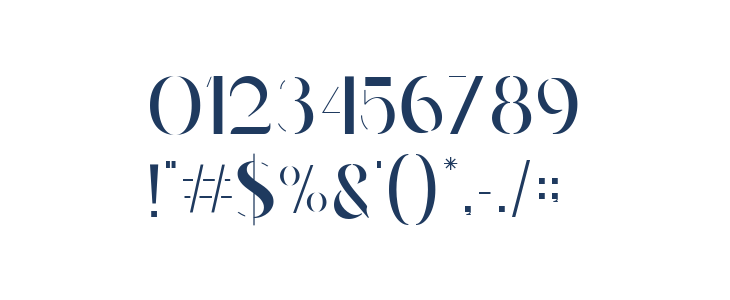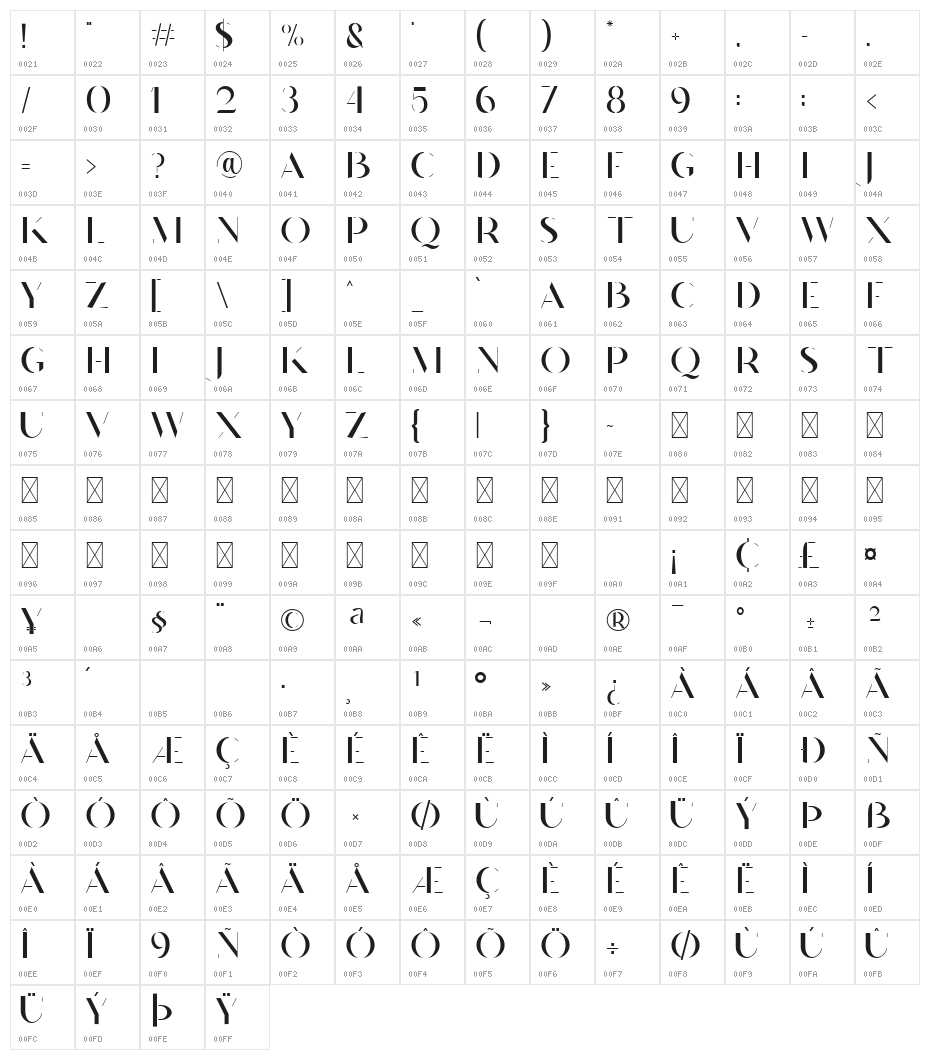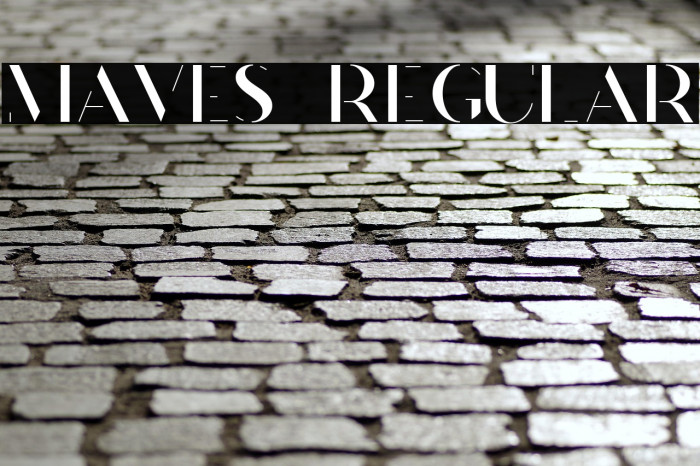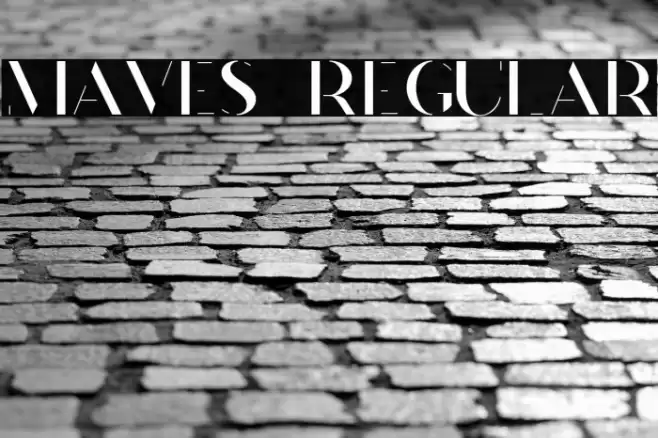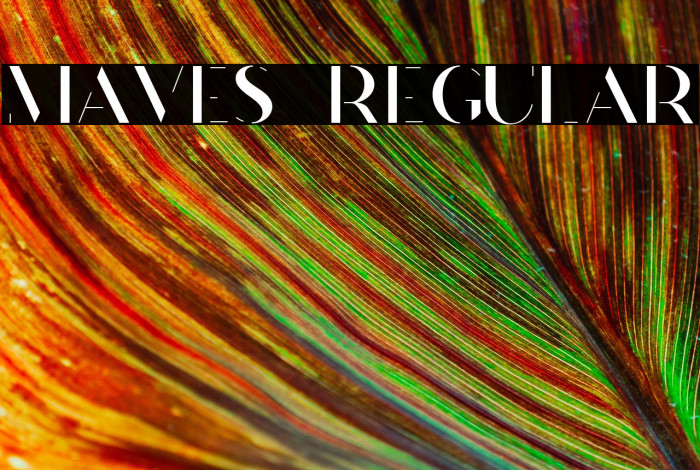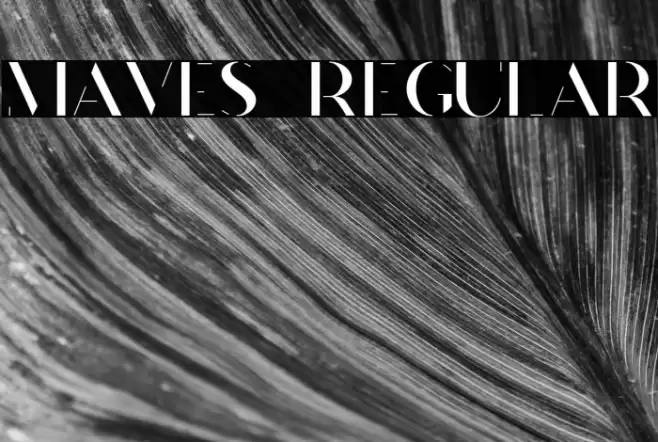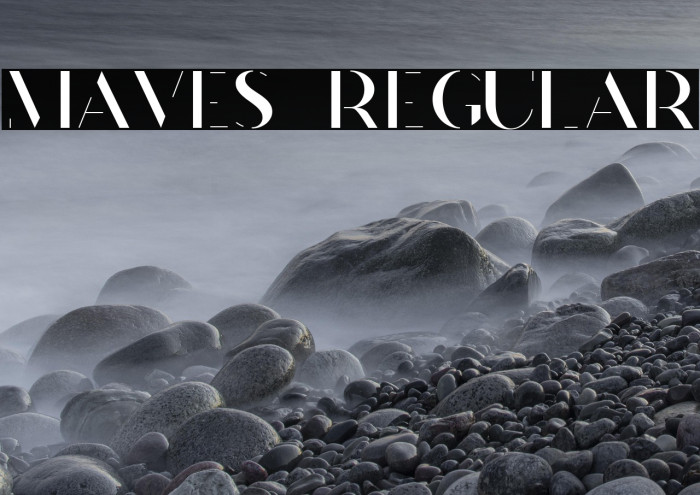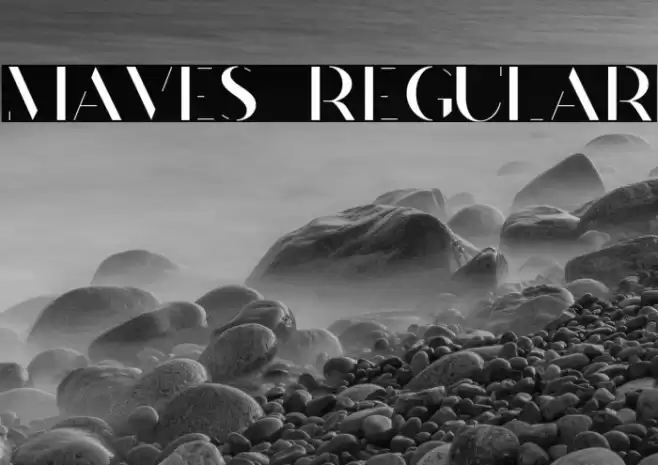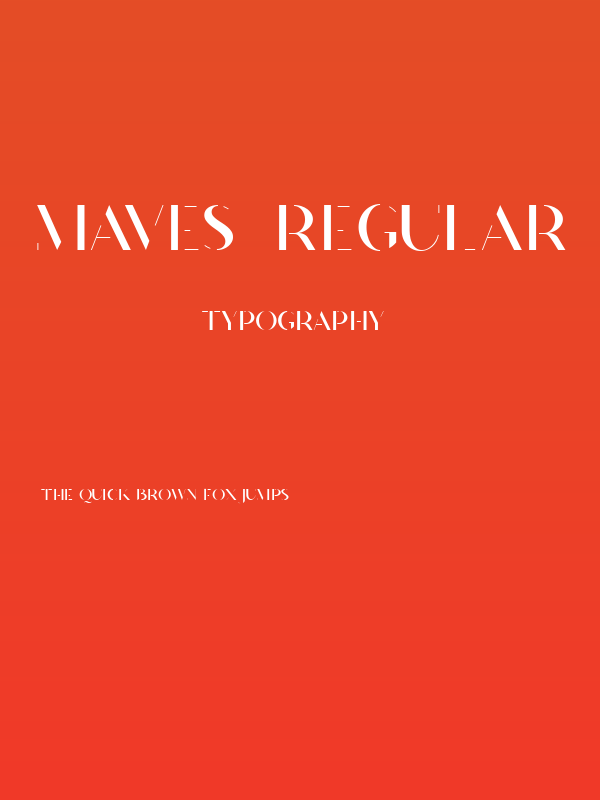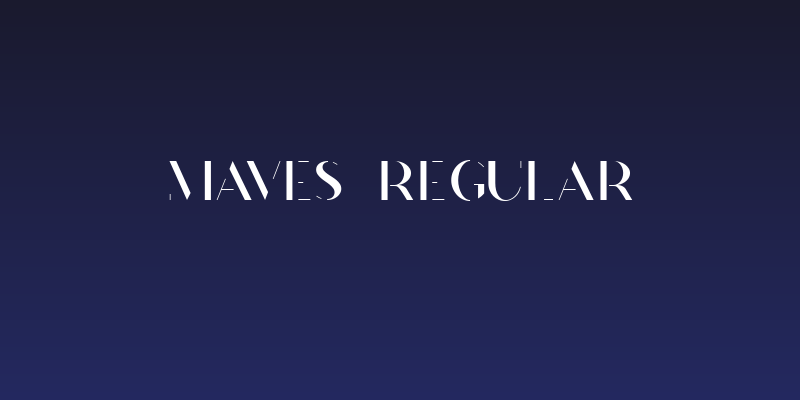
Maves Regular Font
Maves Regular Description
This font features a modern and artistic design with a unique stencil-like appearance. The characters are defined by bold, clean lines with strategic cutouts that create a sense of movement and dynamism. The uppercase and lowercase letters maintain a consistent style, offering a cohesive look across the alphabet. The numerals and special characters follow the same design principles, ensuring uniformity. The font's distinct style makes it suitable for creative projects that require a contemporary and eye-catching typeface.
| Proposed Projects | Ideal for branding, posters, and editorial design where a modern and artistic touch is desired. |